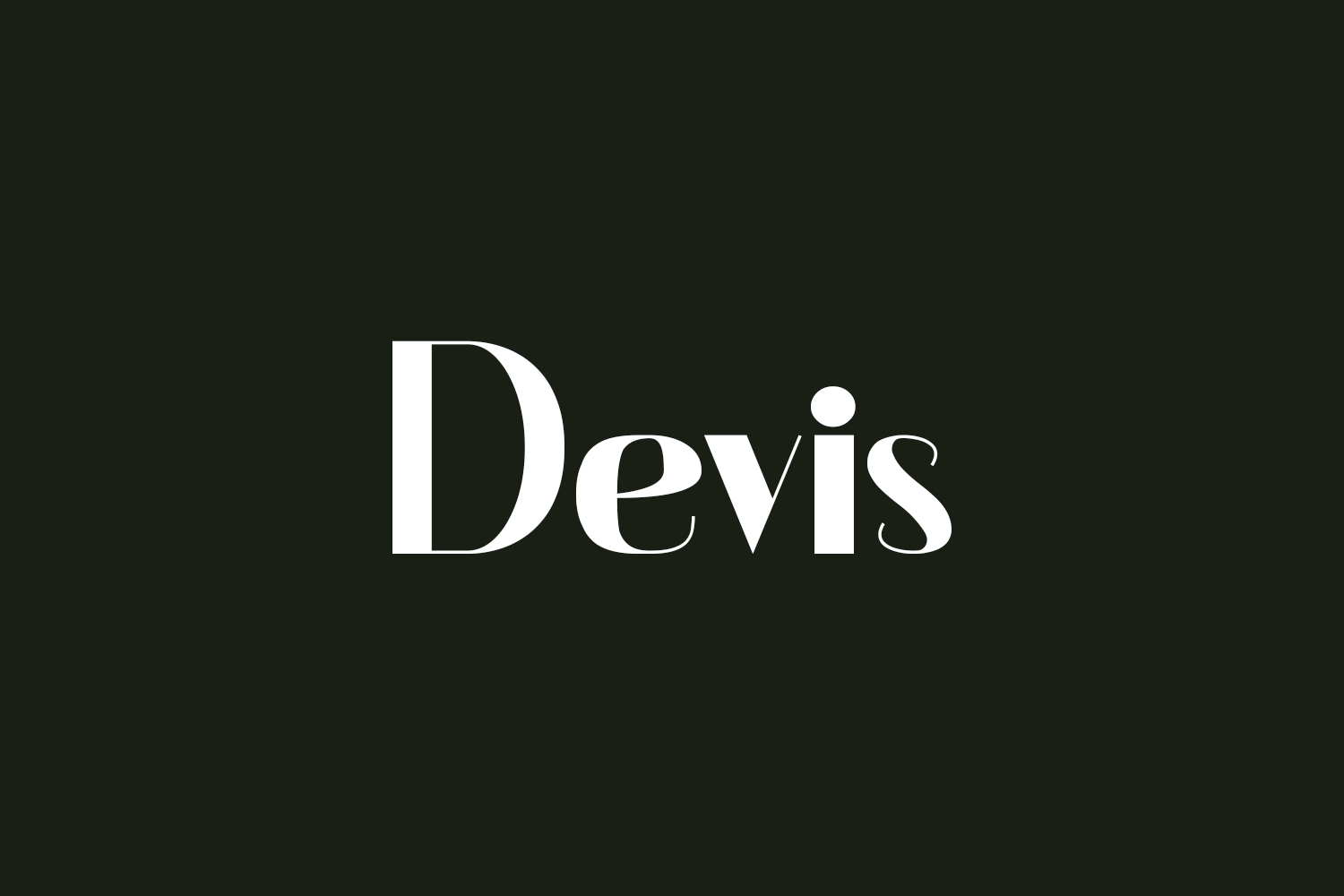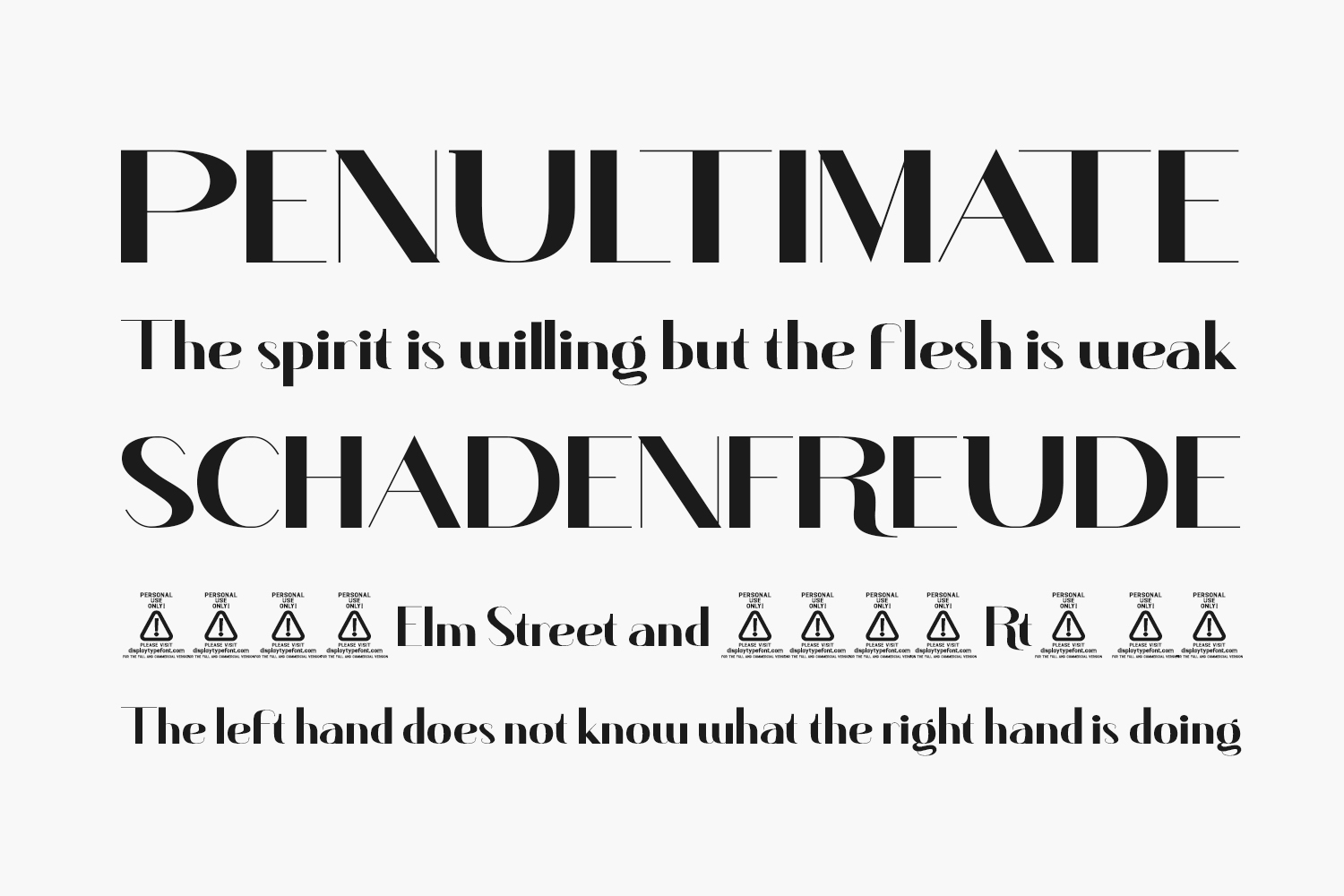
Devis Free Font stands as a refined and dignified sans serif font, perfect for elevating brand logos, invitations, greeting cards, and various projects. Boasting multilingual capabilities and versatile style variations, this typeface enriches the aesthetic appeal of your work with unparalleled sophistication and charm. Download the font for free if you need it for personal use or purchase the full version for commercial use.